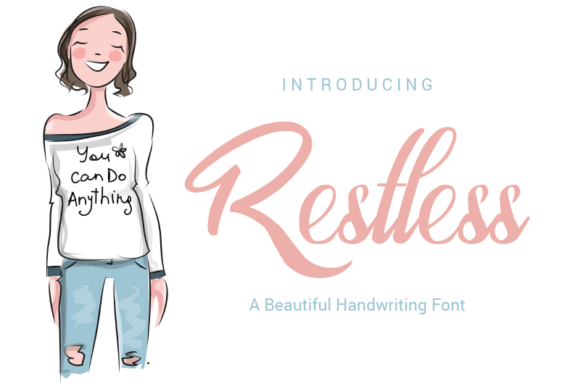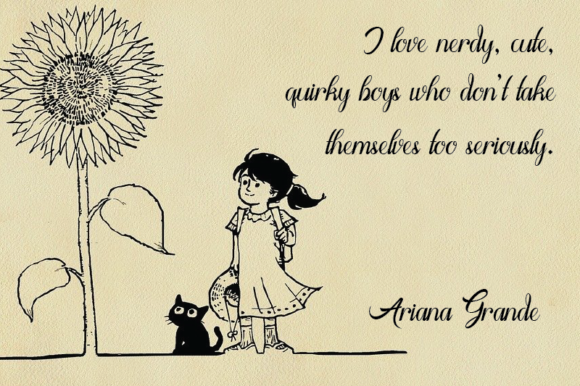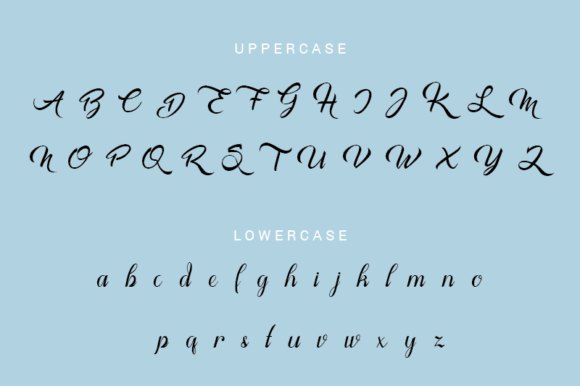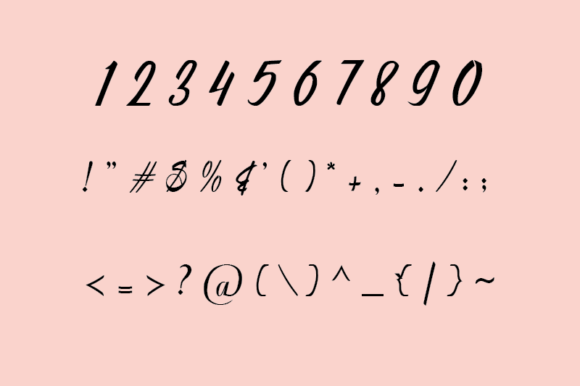
About Restless Font
Restless is a beautiful, elegant, and delicate handwritten font. It maintains its classy calligraphic influences while feeling contemporary and fresh. Fall in love with it and bring your projects to the highest levels!